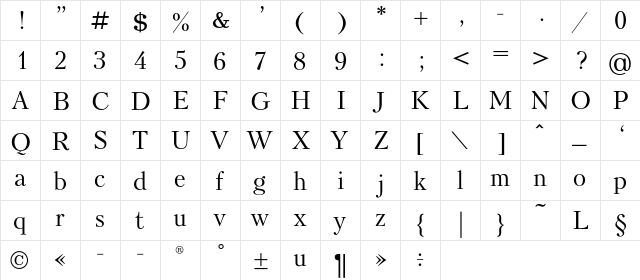
Kudrashov Regular
Design Context for Kudrashov Typeface
Kudrashov takes a measured approach to typography — its balanced proportions and neutral character make it a reliable workhorse for both digital and print work.